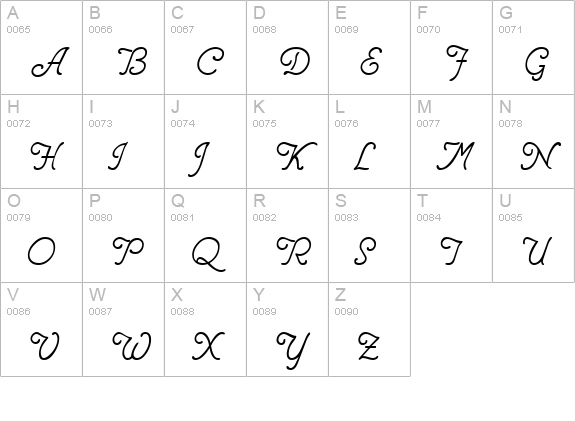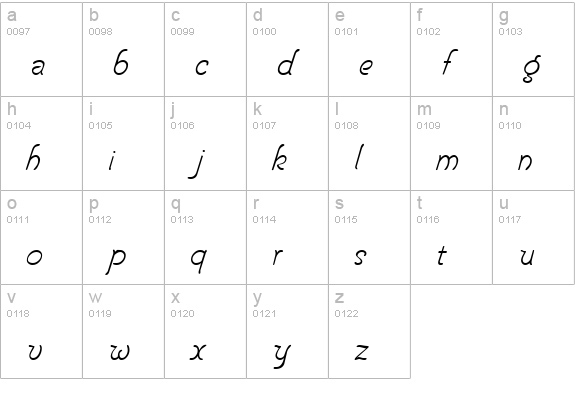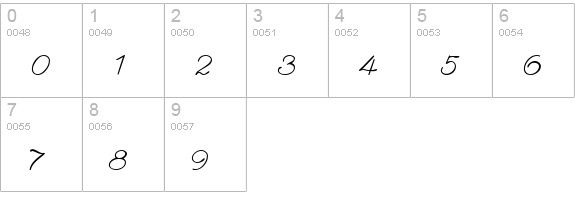
Pentip Regular Font Details
Pentip Regular is the standard, neutral variant in the Pentip typeface family \xE2\x80\x94 well suited to general body text, paragraphs, and standard typographic work.
Pentip Regular font is a versatile and elegant typeface that effortlessly combines modernity with a touch of classic sophistication. With its clean lines and carefully crafted letterforms, this font is perfect for a wide range of design projects, from branding to editorial design. The Pentip Regular font exudes a sense of professionalism and refinement, making it ideal for corporate communications, business cards, and professional presentations. Its legibility ensures that your message is conveyed clearly and effectively, while its timeless design adds a touch of elegance to any project. One of the best aspects of Pentip Regular font is that it is freely available to download at FontsMarket.com. This means that you can easily incorporate this stunning font into your designs without any additional cost. Whether you are a professional graphic designer or a hobbyist looking to add a touch of style to your personal projects, the availability of Pentip Regular font as a free download makes it an accessible choice for everyone. With its wide range of weights and styles, Pentip Regular font offers endless possibilities for creative expression. From bold headlines to delicate body text, this font can adapt to any design concept with ease. Its versatility ensures that it will remain a valuable asset in your font library for years to come. In conclusion, Pentip Regular font is a beautiful and functional typeface that effortlessly combines modernity with timeless elegance. Its freely available download at FontsMarket.com makes it a convenient choice for designers of all levels. So why wait? Enhance your designs today with the sophistication and versatility of Pentip Regular font.